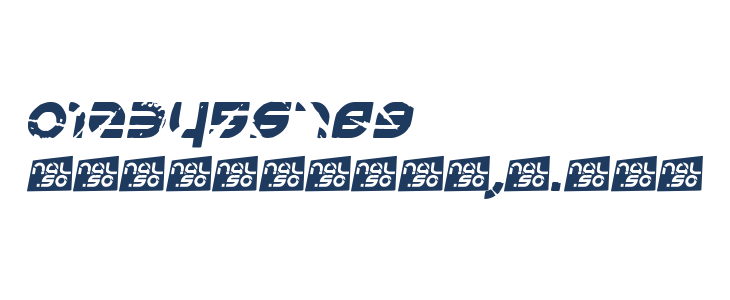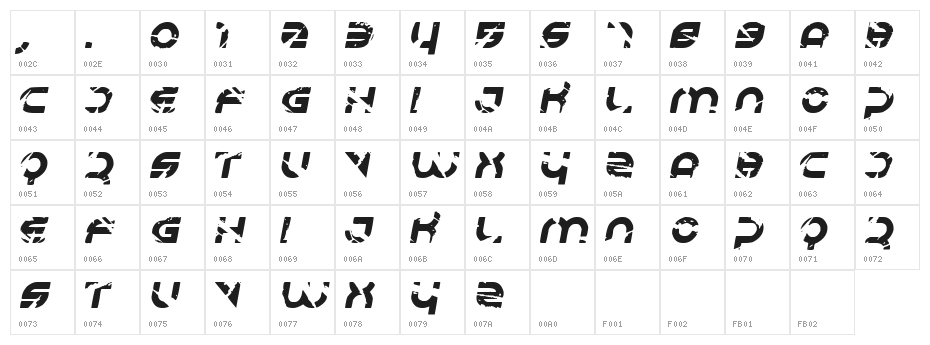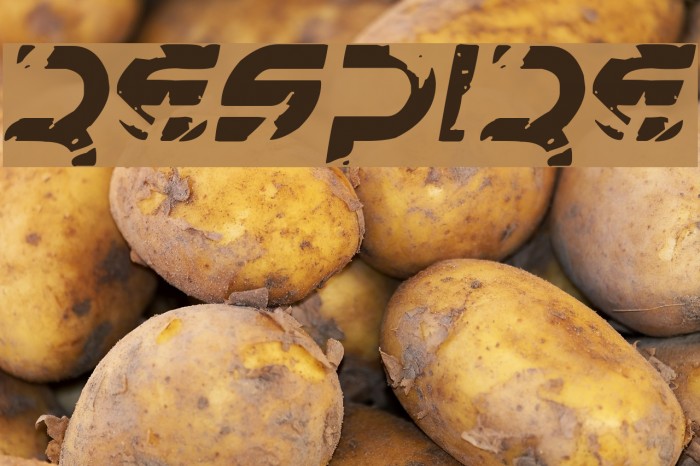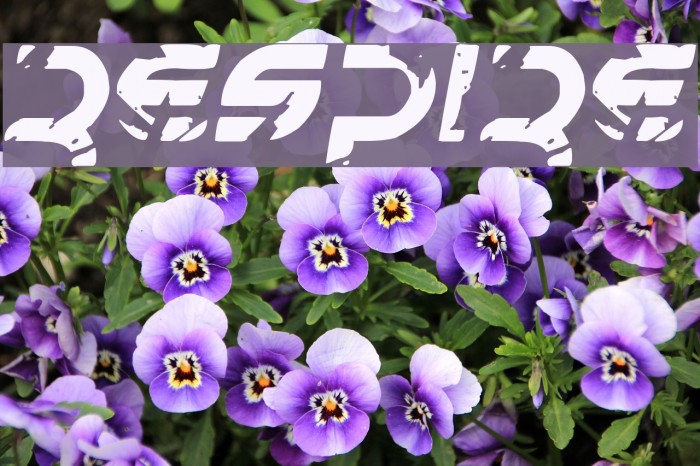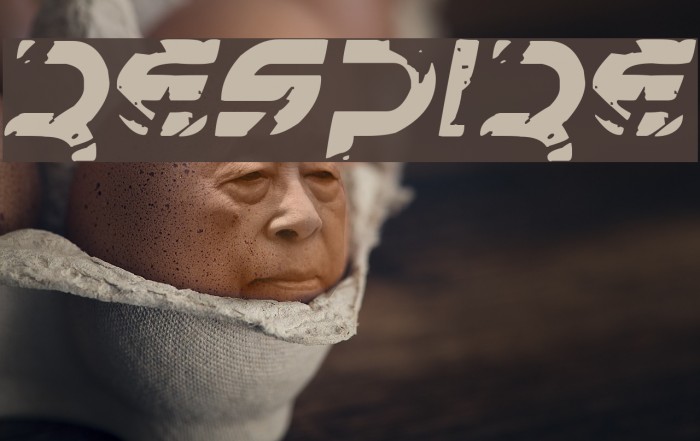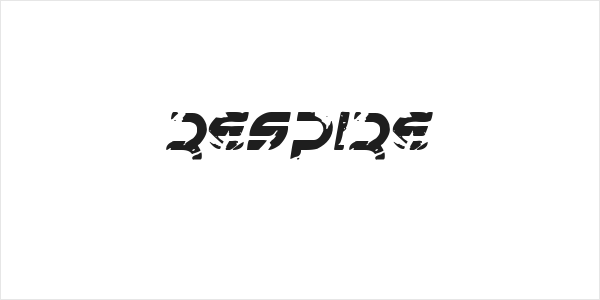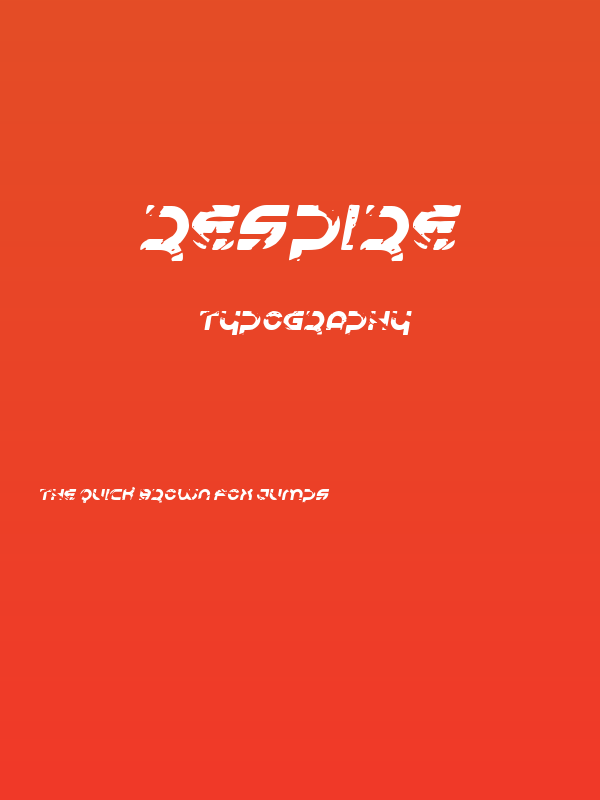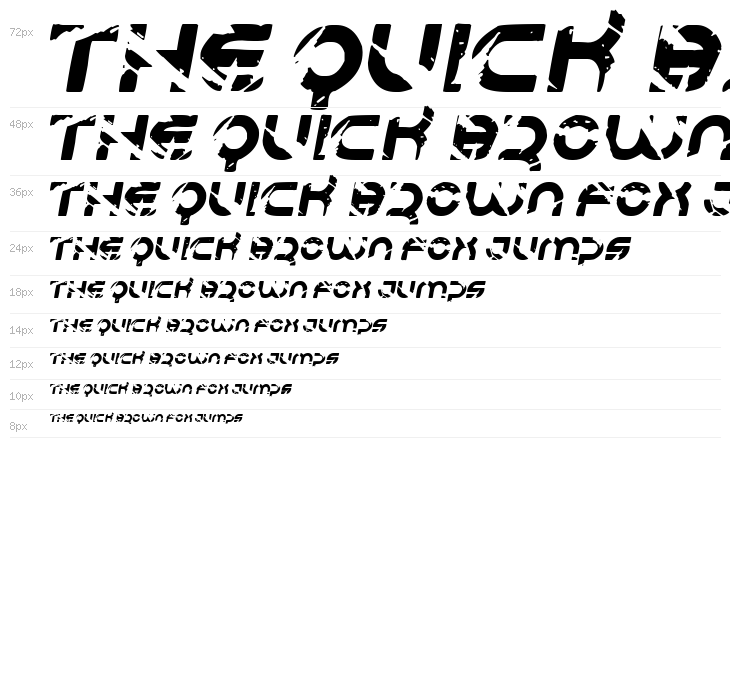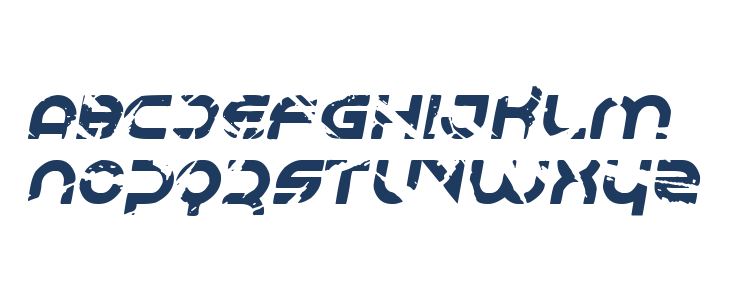
Respire Font
✎ Distorted Eroded
Respire Description
This font features a bold, distressed style with a modern and edgy appearance. The characters are heavily stylized with a grunge effect, giving them a worn and rugged look. The uppercase and lowercase letters maintain a consistent design, with portions of the strokes appearing as if they have been eroded or scratched away. This creates a dynamic and visually striking effect that draws attention. The numbers and special characters follow the same design principles, ensuring a cohesive look across all glyphs. The font's unique style makes it suitable for projects that require a bold and impactful visual statement.
| Overall Style | Modern, Grunge |
| Proposed Projects | Ideal for album covers, posters, urban-themed designs, and branding that requires a gritty, impactful look. |